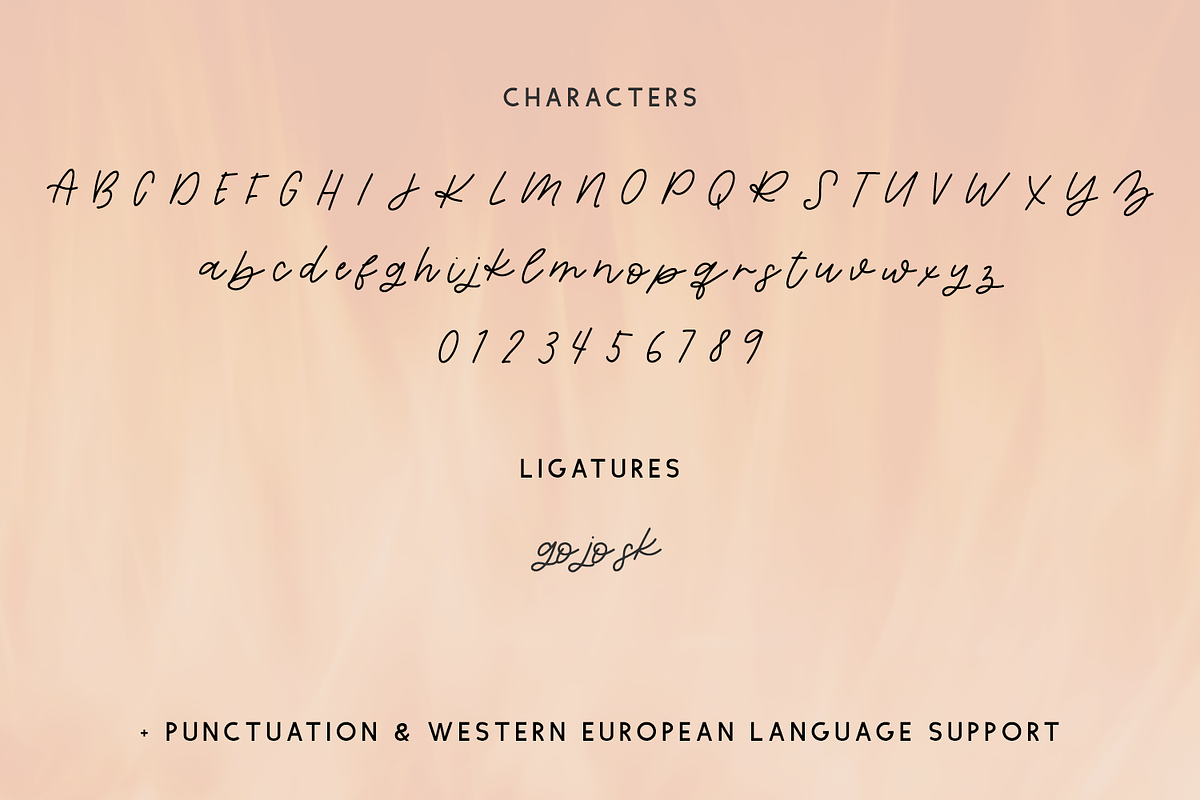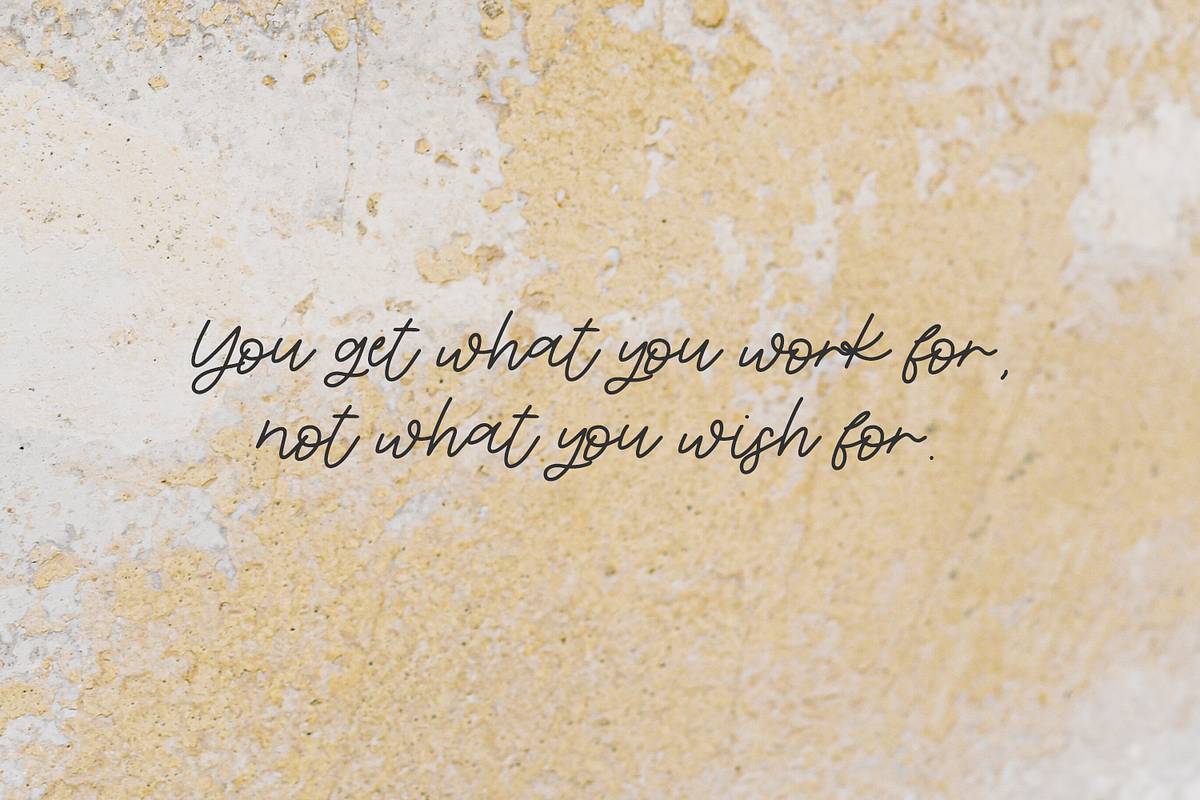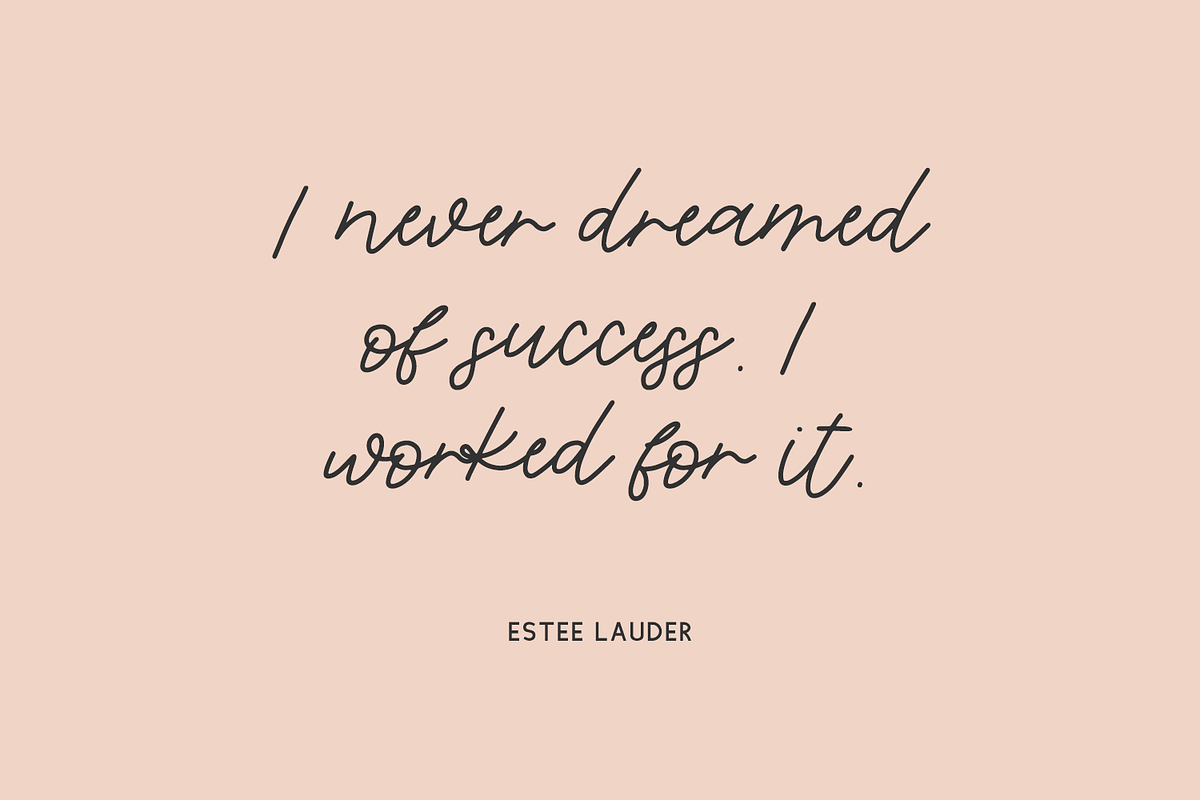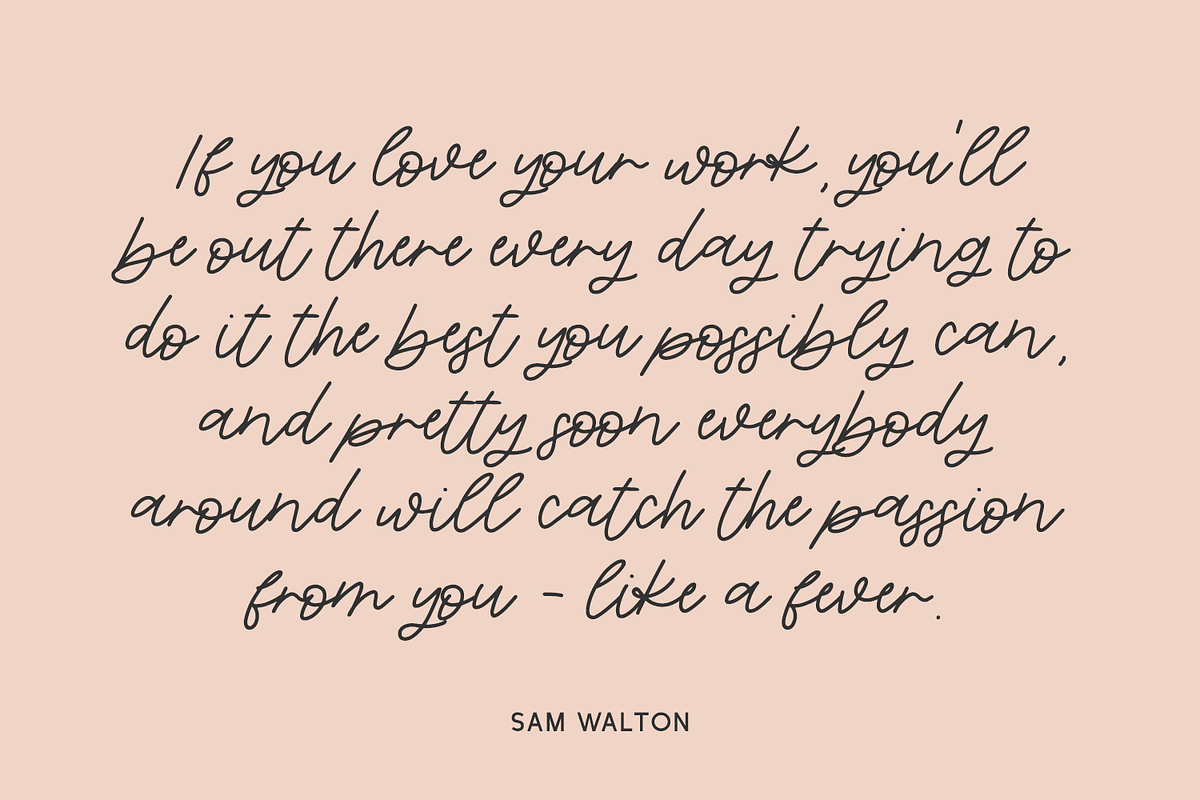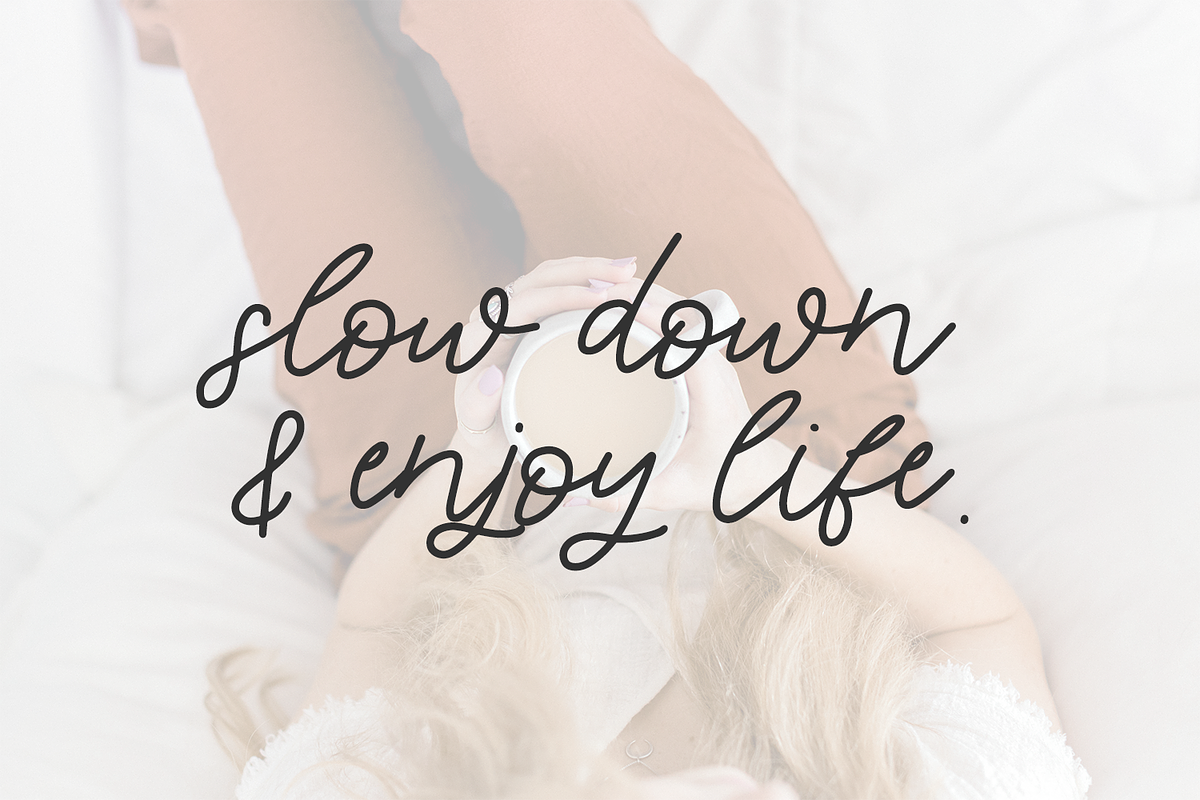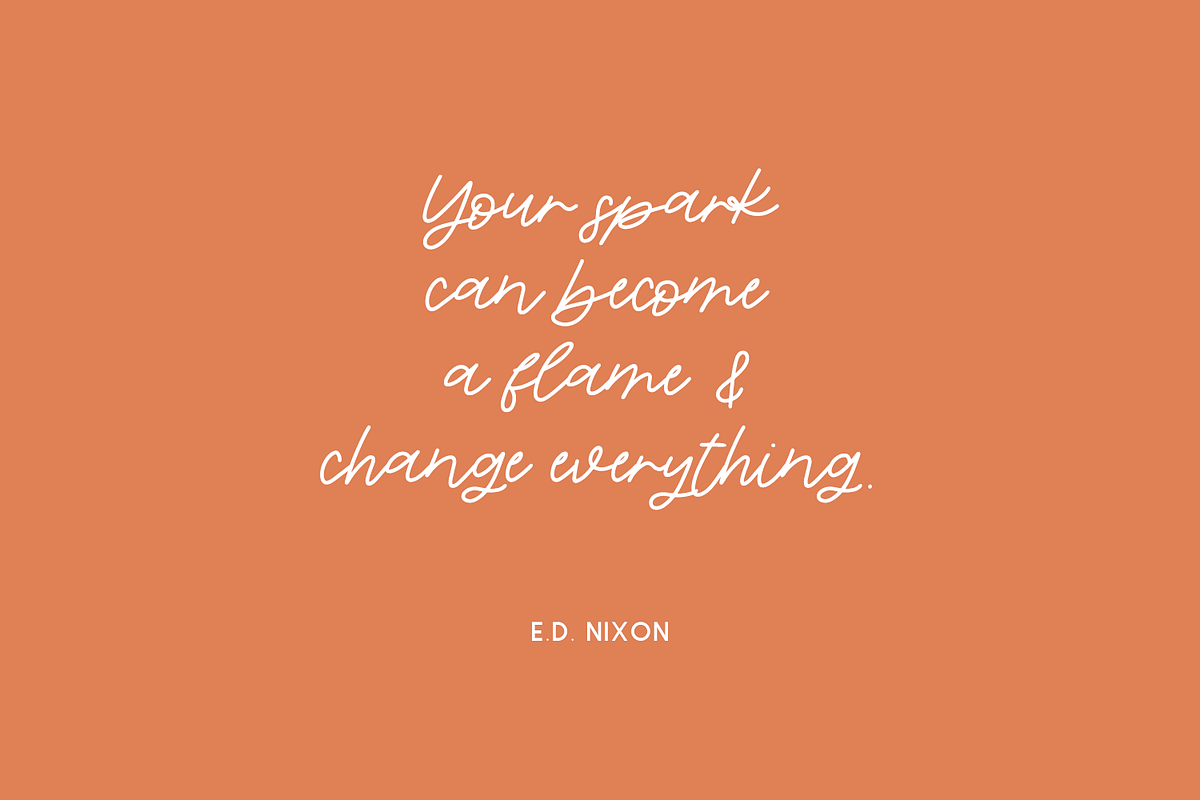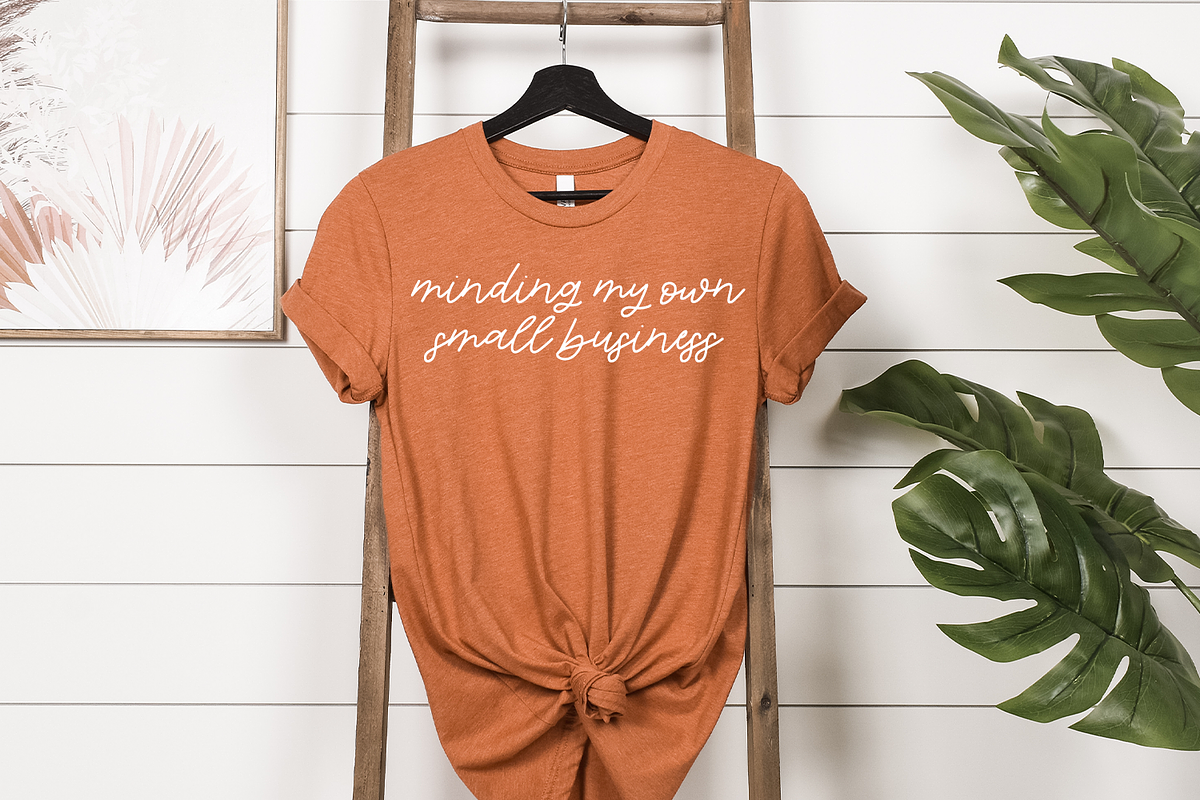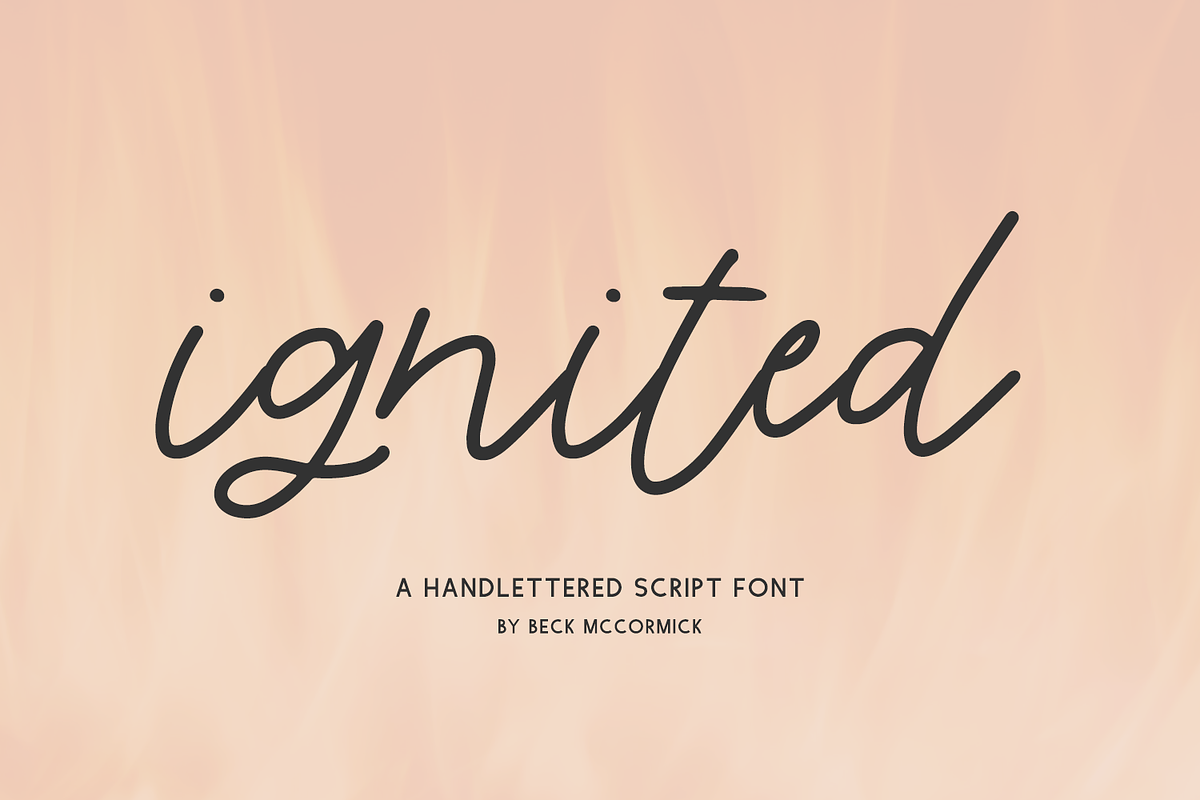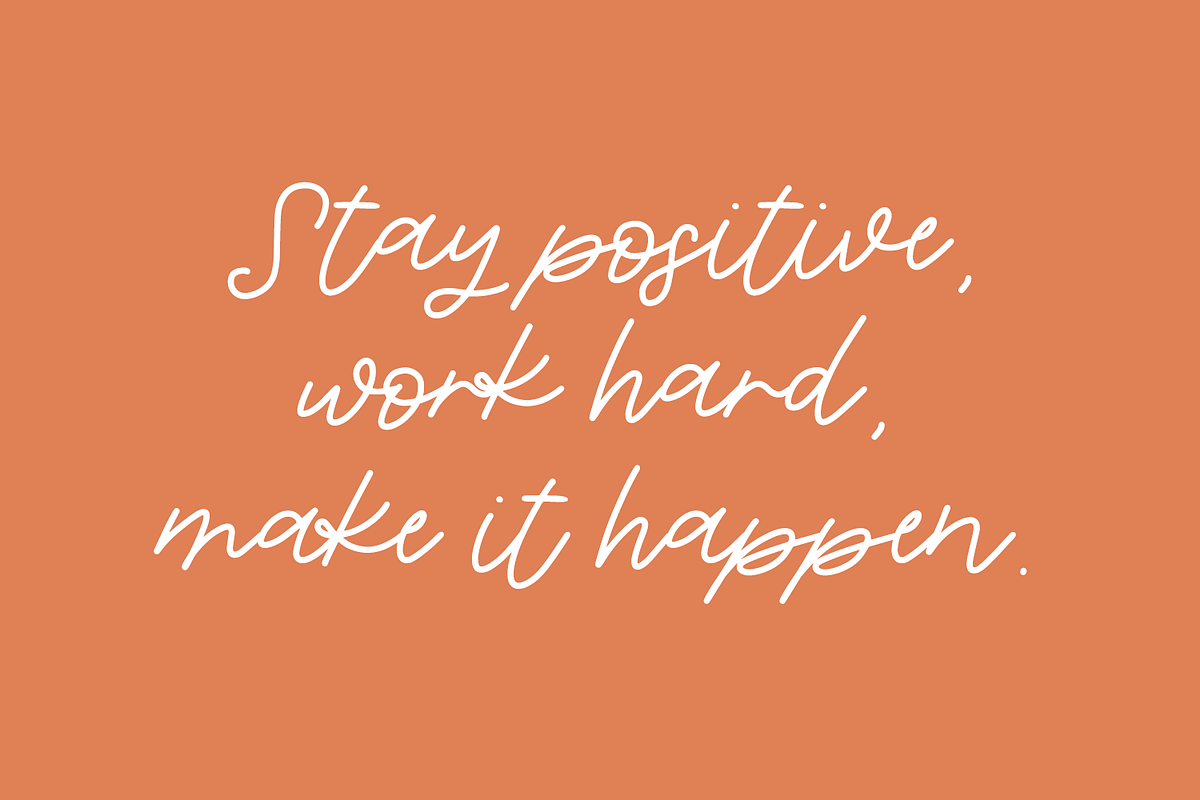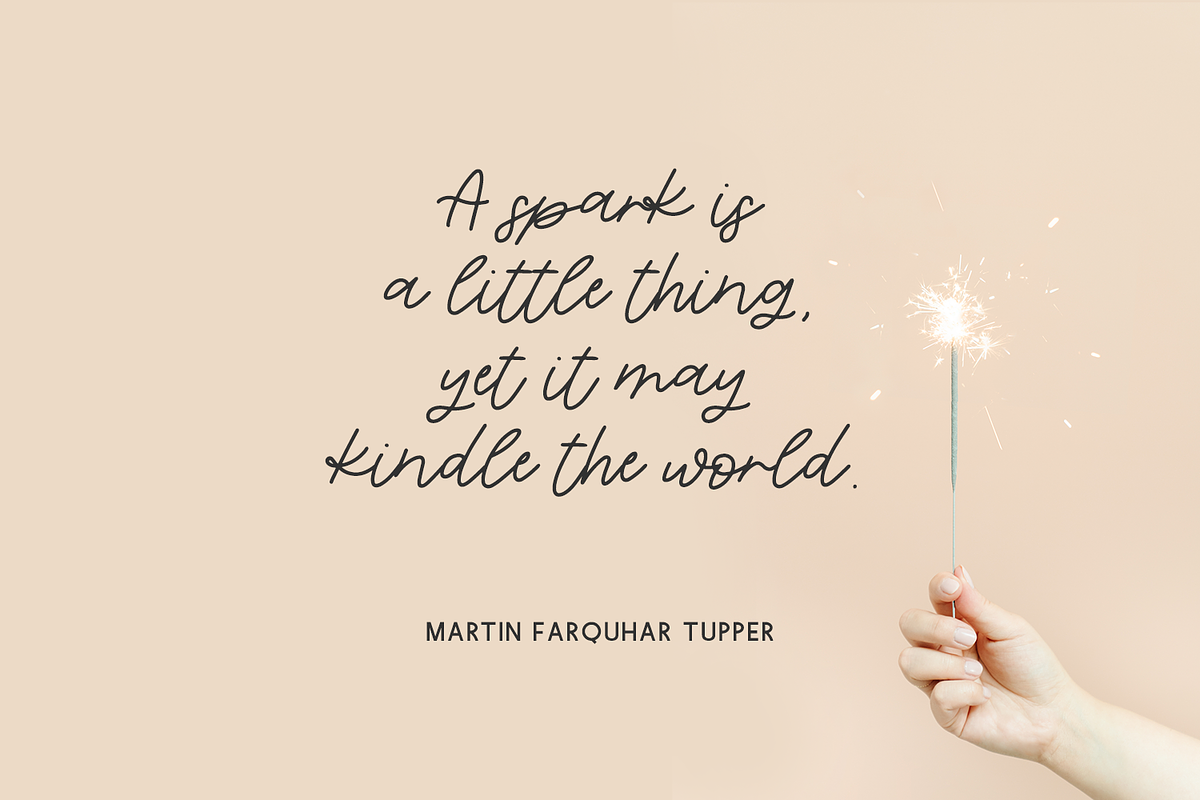
Ignited Script
Introducing Ignited, a cute monoline calligraphy font.
Ignited is best for:
- feminine, crafty projects with your Cricut or Silhouette machine, or your SVG design business
- farmhouse decor and crafts
- logos + branding
- digital planners & apps like Goodnotes
- website design + website accents, blog design
- clean print design, like magazines + flyers
- header elements that need handwritten touch
- quote graphics for social media
- feminine graphic tee shirt design & other apparel
Ignited includes:
- full upper + lowercase characters
- numbers + punctuation
- Western European Language Support
- 3 ligatures - go, jo, sk